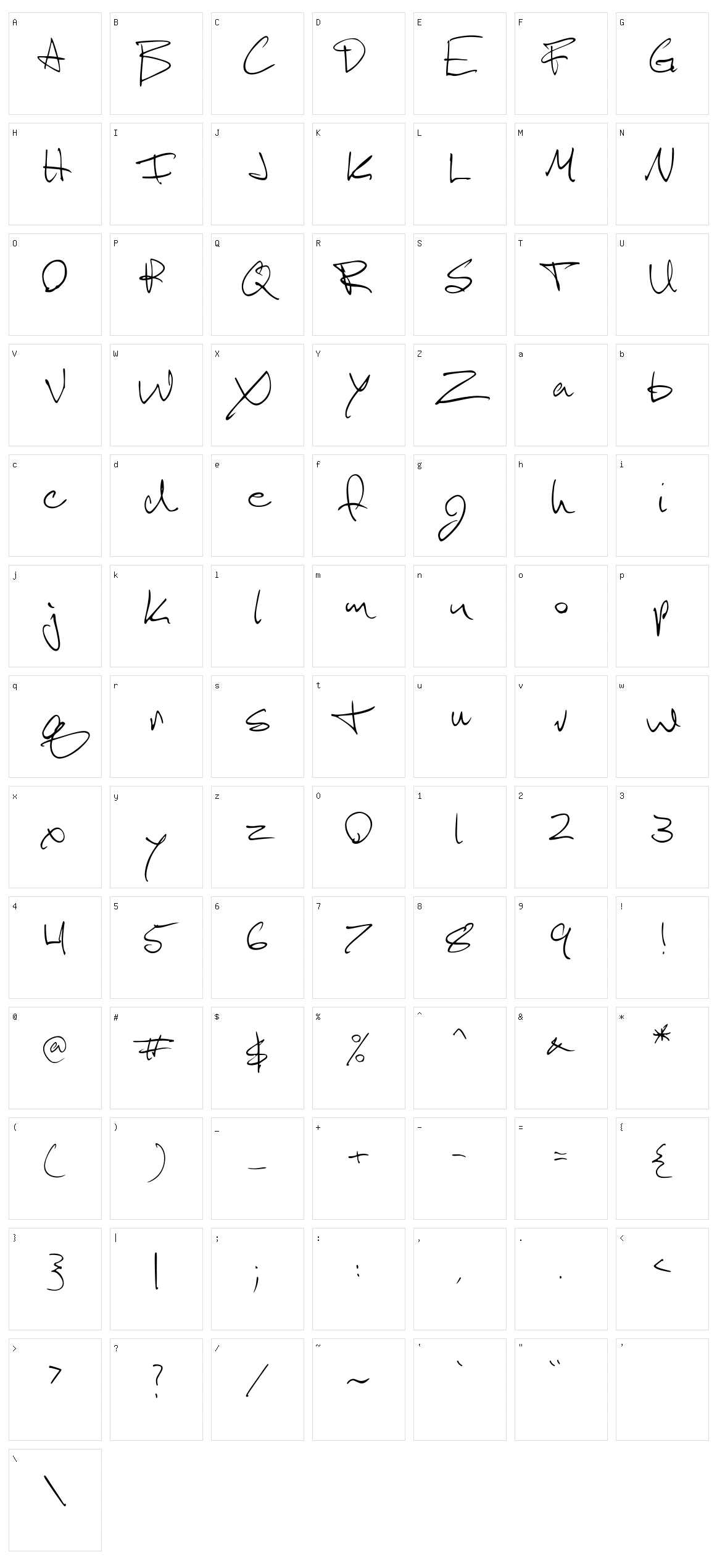
The free font Scotosaurus is carefully designed by Scott Aneloski, showcasing a thoughtful balance of creativity and usability and falls under the Script font style. When you download the ZIP file, it contains only 143.3 KB of font files, making it lightweight and quick to download. Please review the license details below to understand permitted usage and distribution rights. If license information is not available, we recommend using this font for personal projects only or contacting the author directly for commercial usage permissions.